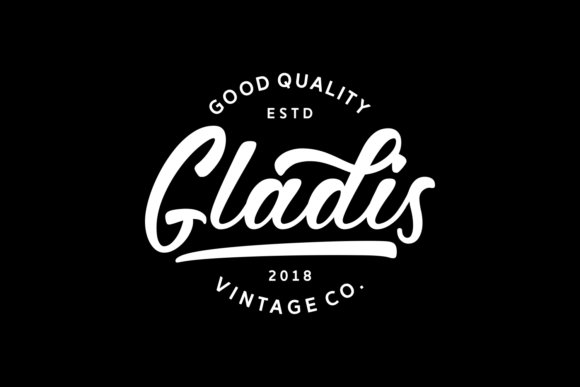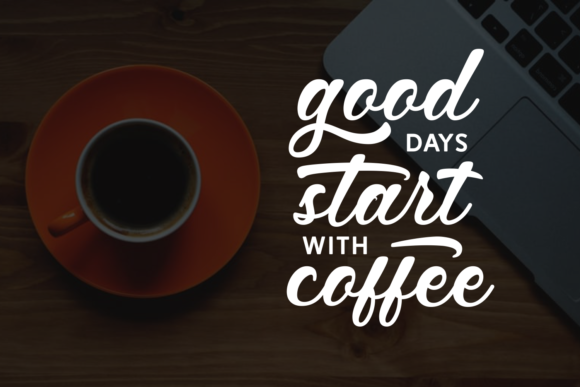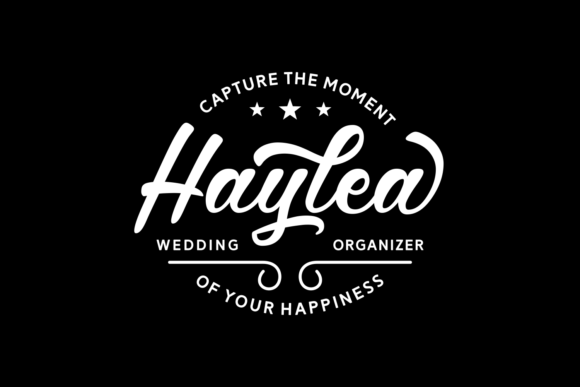
Hettas Font
About Hettas Font
Hettas is a beautifully stunning logotype font, ideal for use in projects that need to elicit some retro style. This font has a bold and simple approach to cursive logotype.